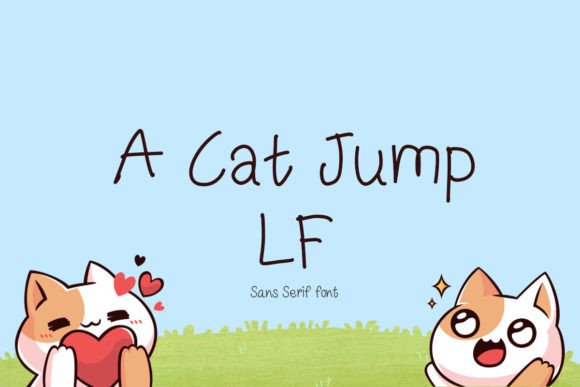
The Purrfect Font: A Cat Jump LF Review and Guide
Have you ever been in the middle of a design project, and suddenly, you’re stuck on finding the right font? I recently had one of those moments while working on a fun children’s-themed design project. My client wanted a playful, cute, and cheerful font that would match the tone of their brand. After scouring through my font library, I stumbled upon A Cat Jump LF, and it was love at first sight! 😍
First Impressions: A Cute and Playful Font
A Cat Jump LF is a sans serif font style that exudes a sense of playfulness and good mood. Its cute and cheerful vibe makes it perfect for a variety of design projects, including fun projects, diary planners, wedding invitations, thank you cards, quotes, greeting cards, logos, posters, children-themed designs, blogs, bags, T-Shirts, clothing, and more.
Honest Review: What I Love and Some Quirks
• ✨ Cute and playful design: A Cat Jump LF is perfect for designs that require a fun and cheerful tone.
• ✅ Good mood vibes: This font is sure to bring a smile to your face and make your designs more approachable.
• ⚠️ Limited use in formal designs: Due to its playful nature, A Cat Jump LF might not be the best fit for formal or professional designs.
• 🤔 Glyphs and OpenType features: While A Cat Jump LF has some great OpenType features, it might take some time to get familiar with the glyphs and how to access them.
A Cat Jump LF has some great OpenType features and glyphs that can enhance your designs. To access these features, you’ll need to use a design software that supports OpenType, such as Adobe Photoshop or Illustrator. Some of the features you can expect to find include:
• Stylistic alternates: These are alternative glyphs that can be used to add more variety to your text.
• Ligatures: These are special character combinations that can be used to create more visually appealing text.
• Swashes: These are decorative elements that can be used to add more flair to your text.
A Cat Jump LF was inspired by the playful and curious nature of cats. The designer wanted to create a font that captured the fun and carefree spirit of these amazing animals. The result is a font that’s perfect for designs that require a playful and cheerful tone.
What is A Cat Jump LF? A Cat Jump LF is a cute, playful, and good mood sans serif font style.
What can I use A Cat Jump LF for? A Cat Jump LF is perfect for fun projects, diary planners, wedding invitations, thank you cards, quotes, greeting cards, logos, posters, children-themed designs, blogs, bags, T-Shirts, clothing, and more.
Is A Cat Jump LF easy to use? Yes, A Cat Jump LF is easy to use and comes with a simple and intuitive design.